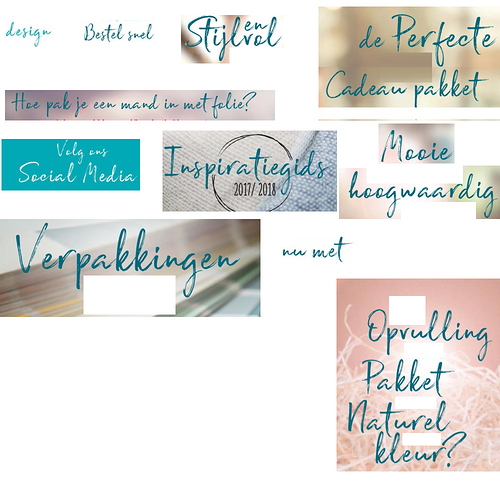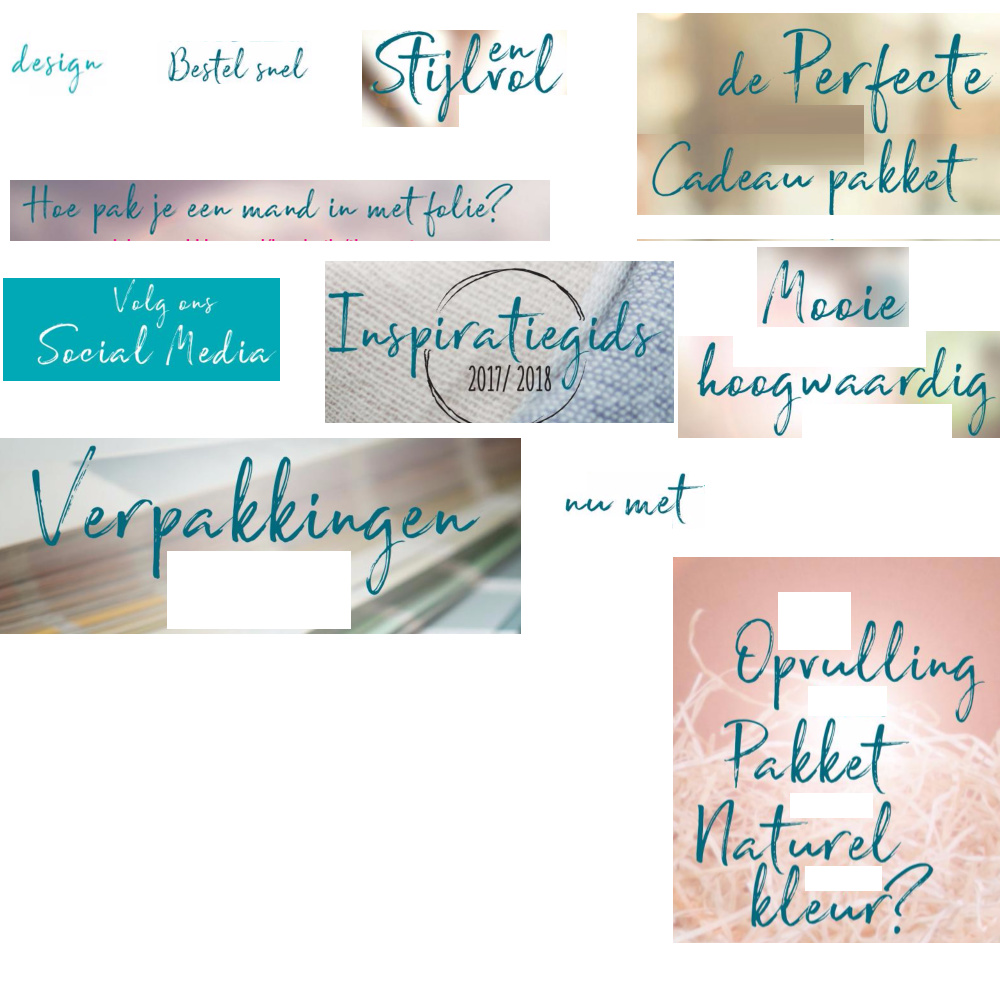
I want to know what font is used here. Have been searching for ages but can’t come up with the exact font
Maybe someone can help me with this one?
I had no luck. But there are a million brush fonts like that out there, and many websites offer bundles of these brush and script fonts and incredible discounts (100 fonts for $9, for example), such as Mighty Deals, Pixel Surplus, Pixel Buddha, CreativeBooster, and more. Try them.
Are you certain that there has been made use of a brush over a font? Because I have found multiple similarities in the same letters of different words, for example the letter P.
No. By brush font, I mean a font that looks like it was made with brush strokes. The font is designed to resemble the thick and thin widths and the broken edges that writing with a brush would produce, but duplicate letters will look alike.